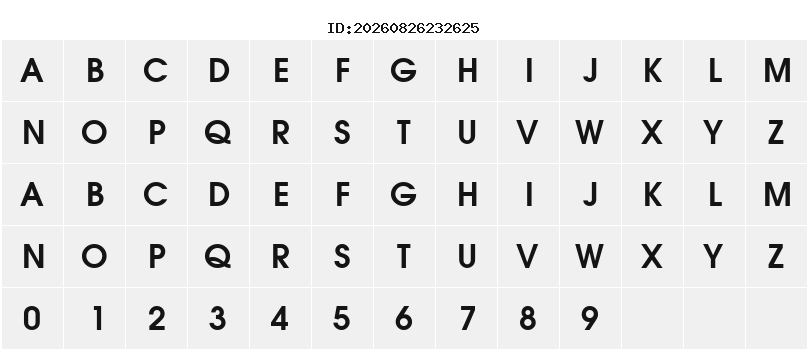
.VnAvantH Preview
• Font Name: .VnAvantH
• Full Font Name: .VnAvantH Bold
About .VnAvantH.ttf
.VnAvantH.ttf is a modern, elegant sans-serif font designed for ultimate readability and visual harmony. Perfect for branding, headlines, web design, and print materials.